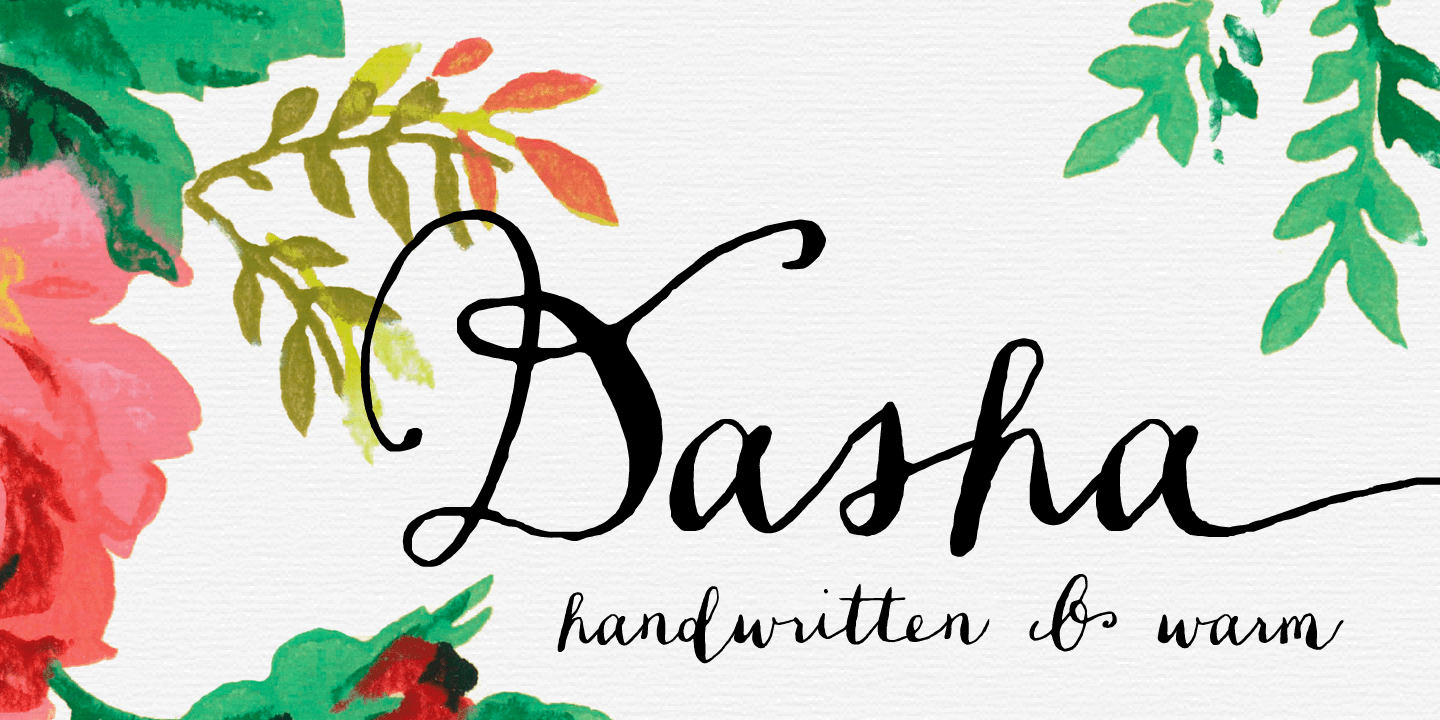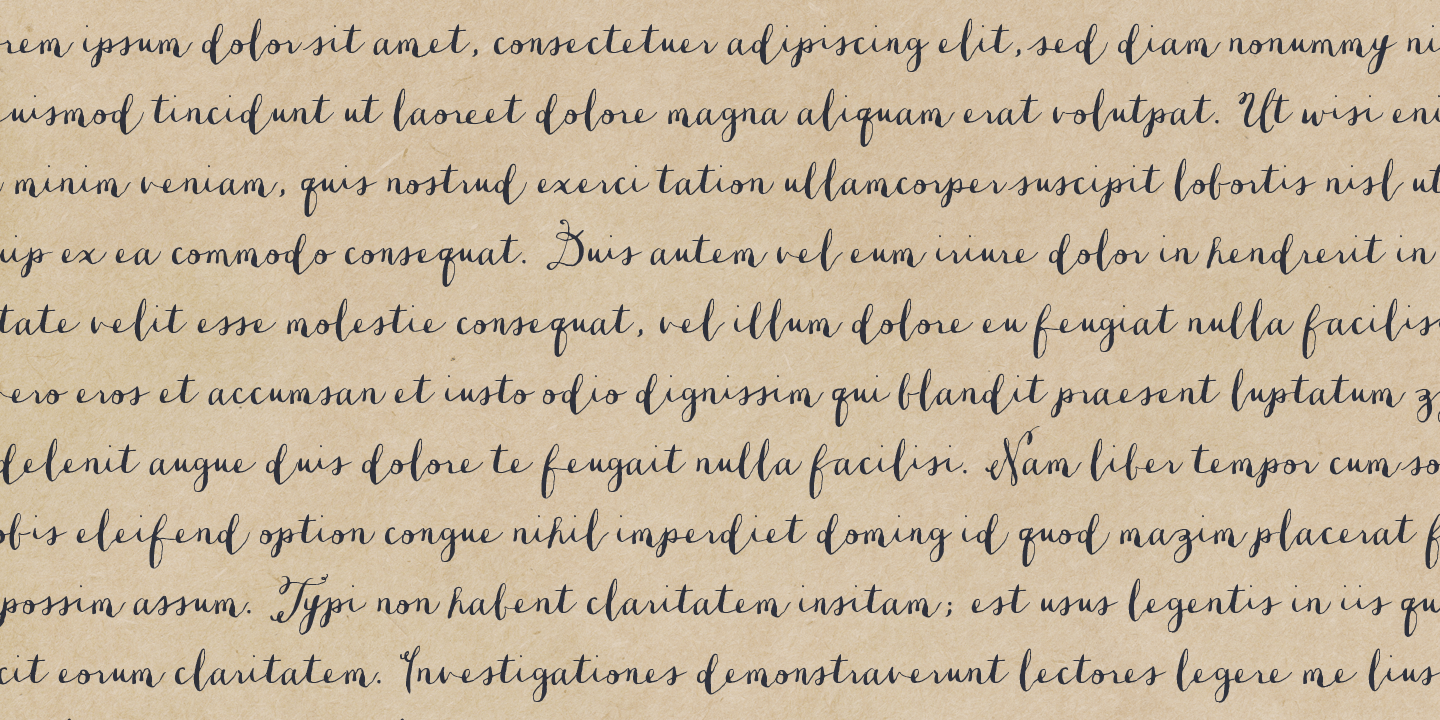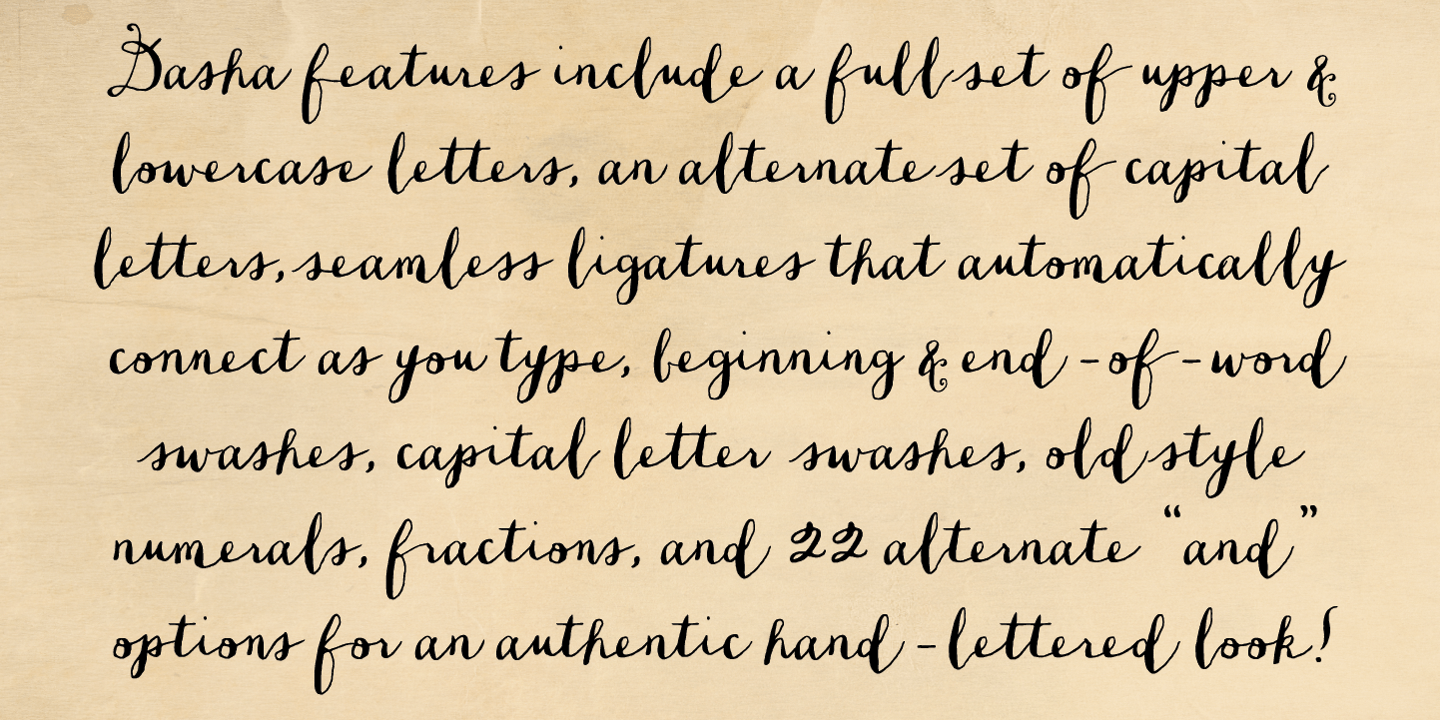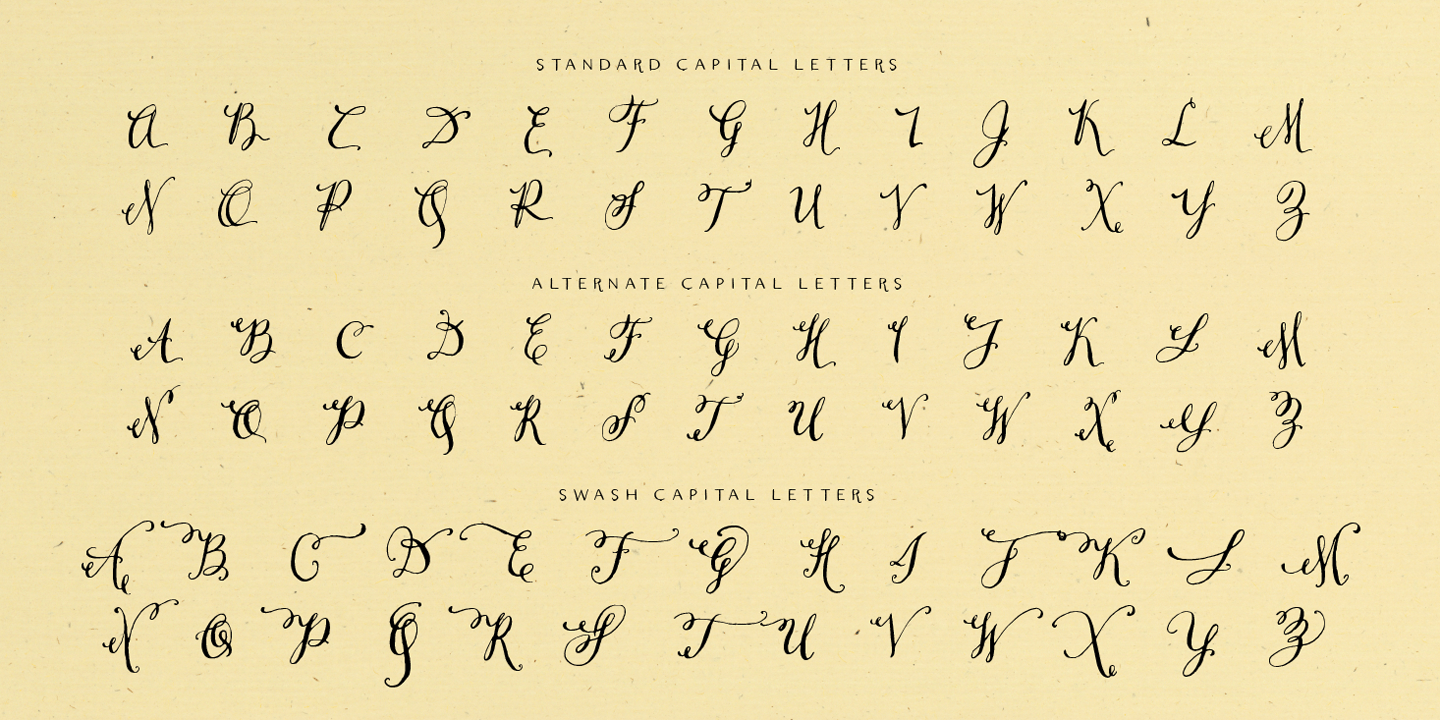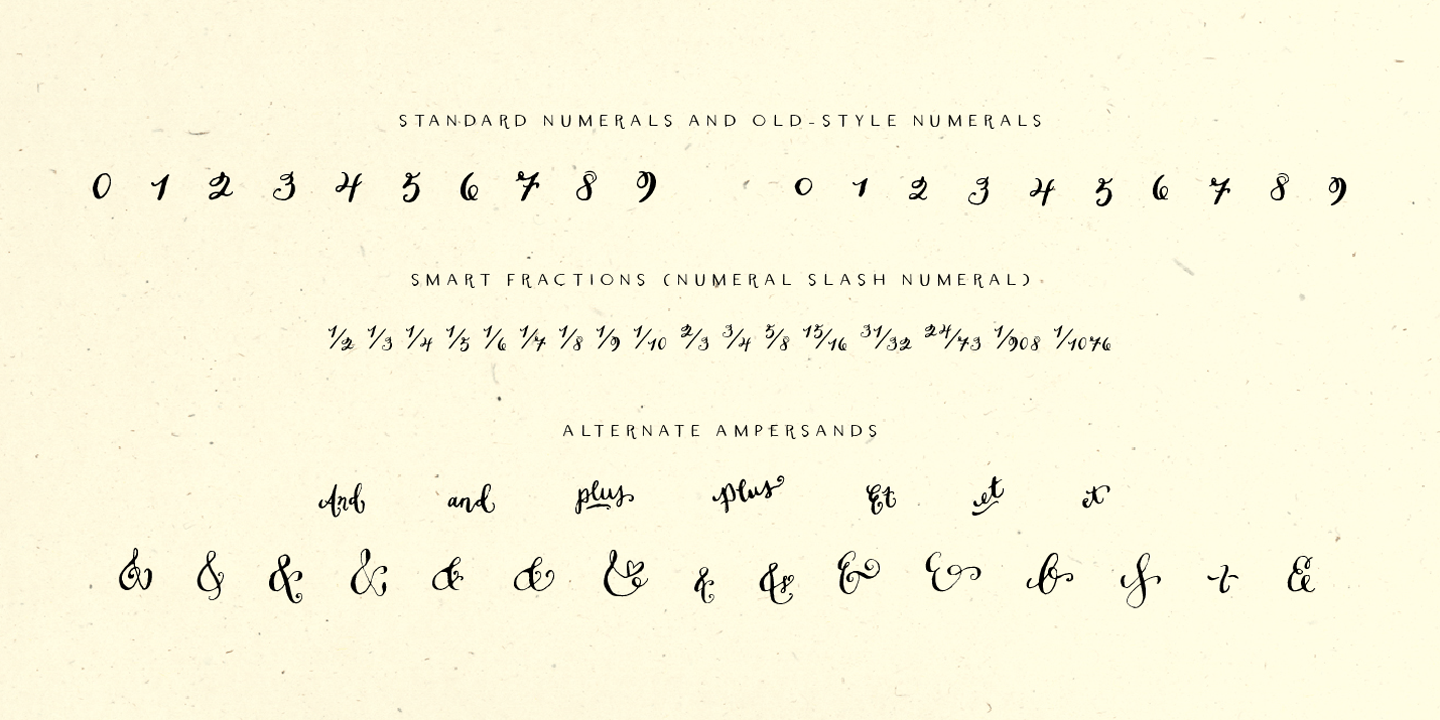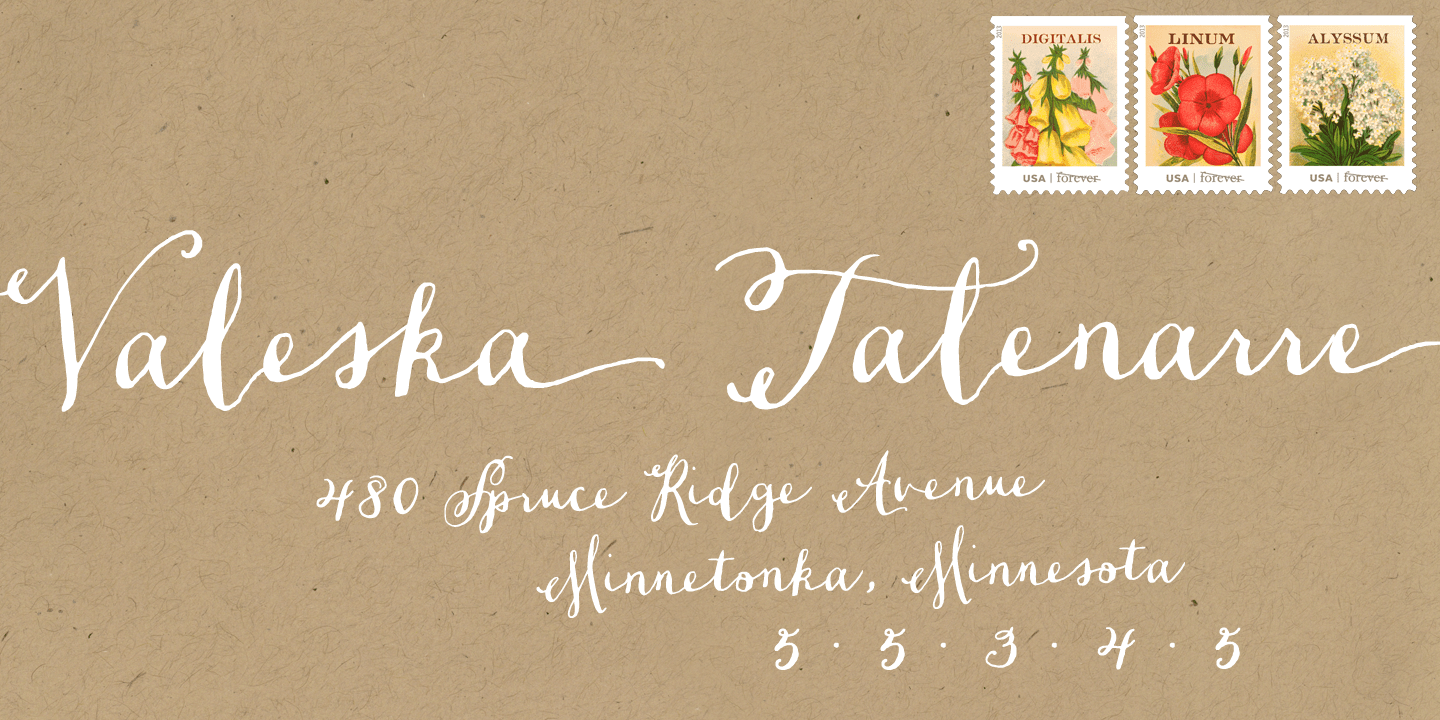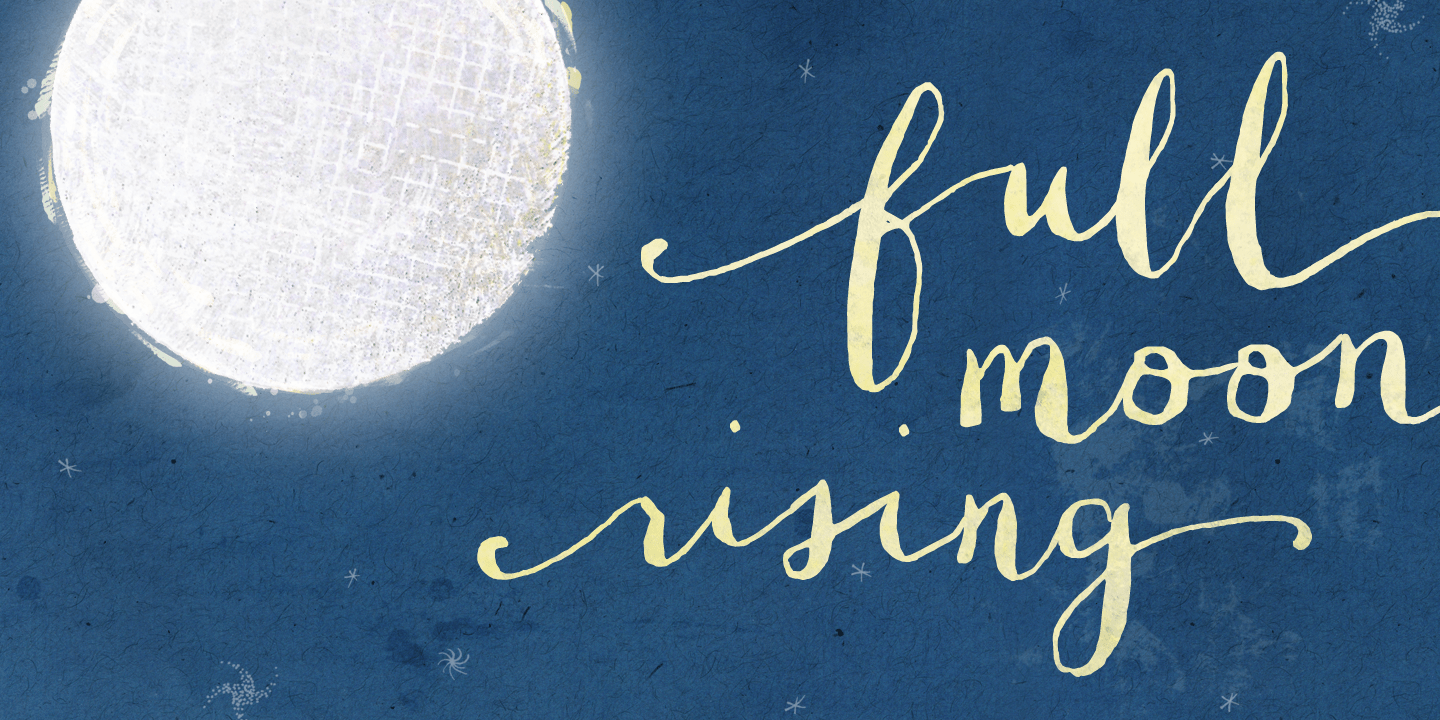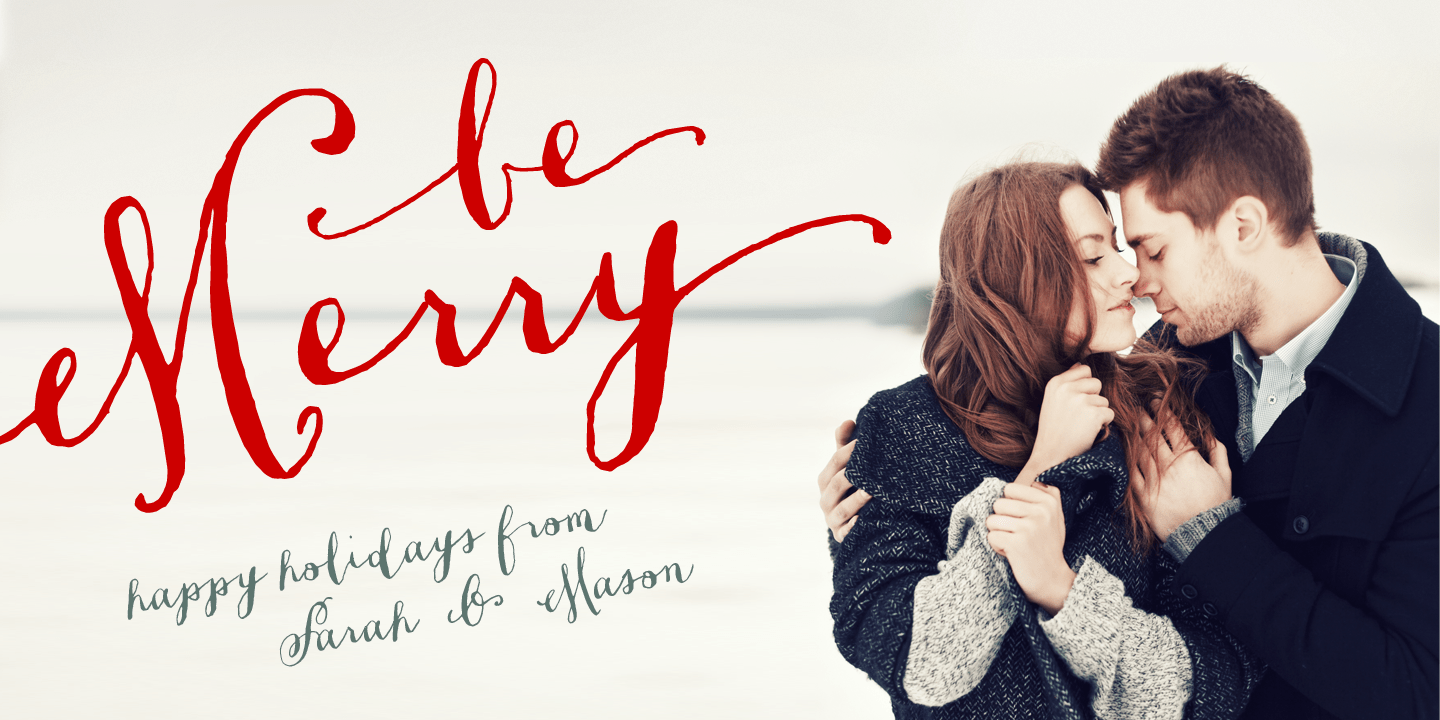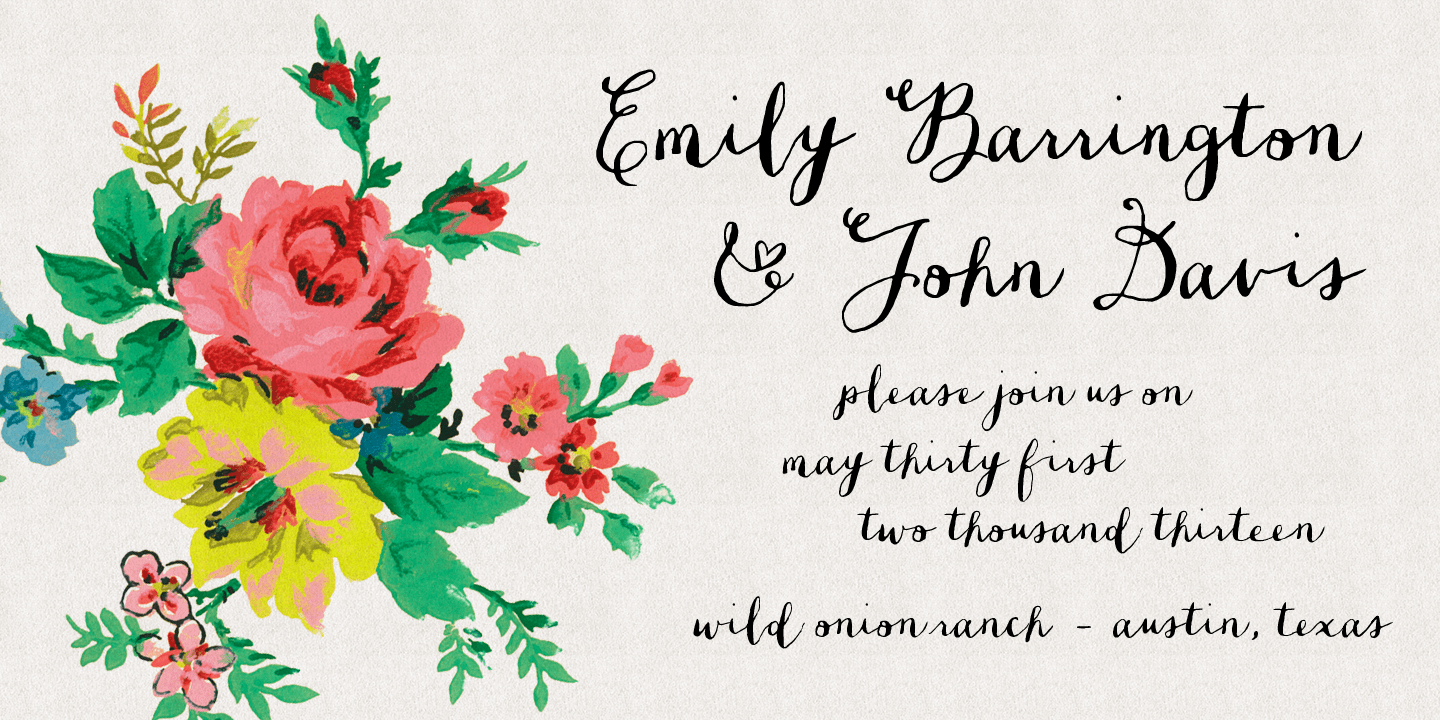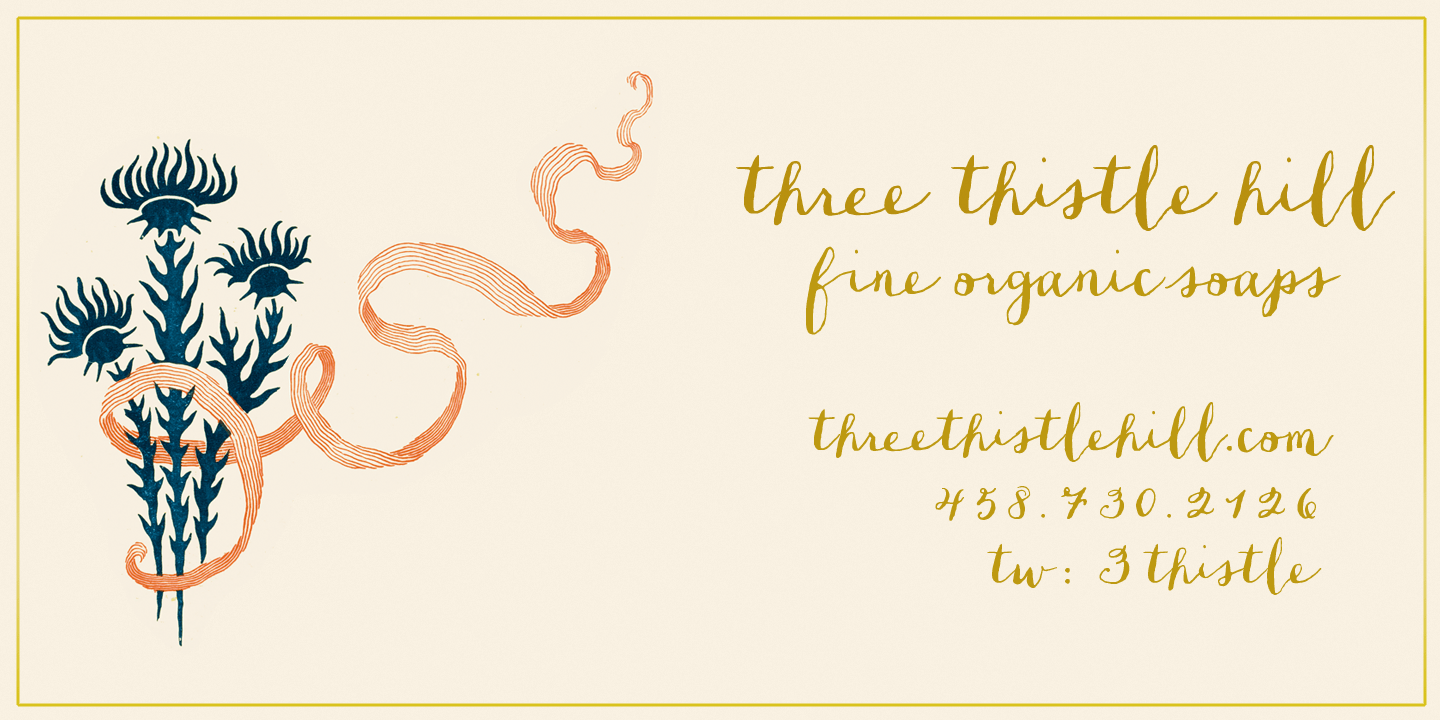
Dasha
Font Family by Magpie Paper Works
Dasha is a vintage-inspired and hand-drawn font, with an alphabet that bounces naturally along a dancing baseline. Inside the font you'll find a host of Opentype features and over 1,000 alternate characters, including a full set of alternate capital letters and 22 alternate ampersand characters (contextual alternates), seamless ligatures that automatically connect as you type (discretionary ligatures), beginning and end-of-word swashes plus a set of elaborate swashed capital letters (swash feature, and stylistic set 1 for Word users), old-style numerals (old style numerals) and arbitrary fractions (fractions). For best results, be sure to use Dasha in Opentype-friendly applications.